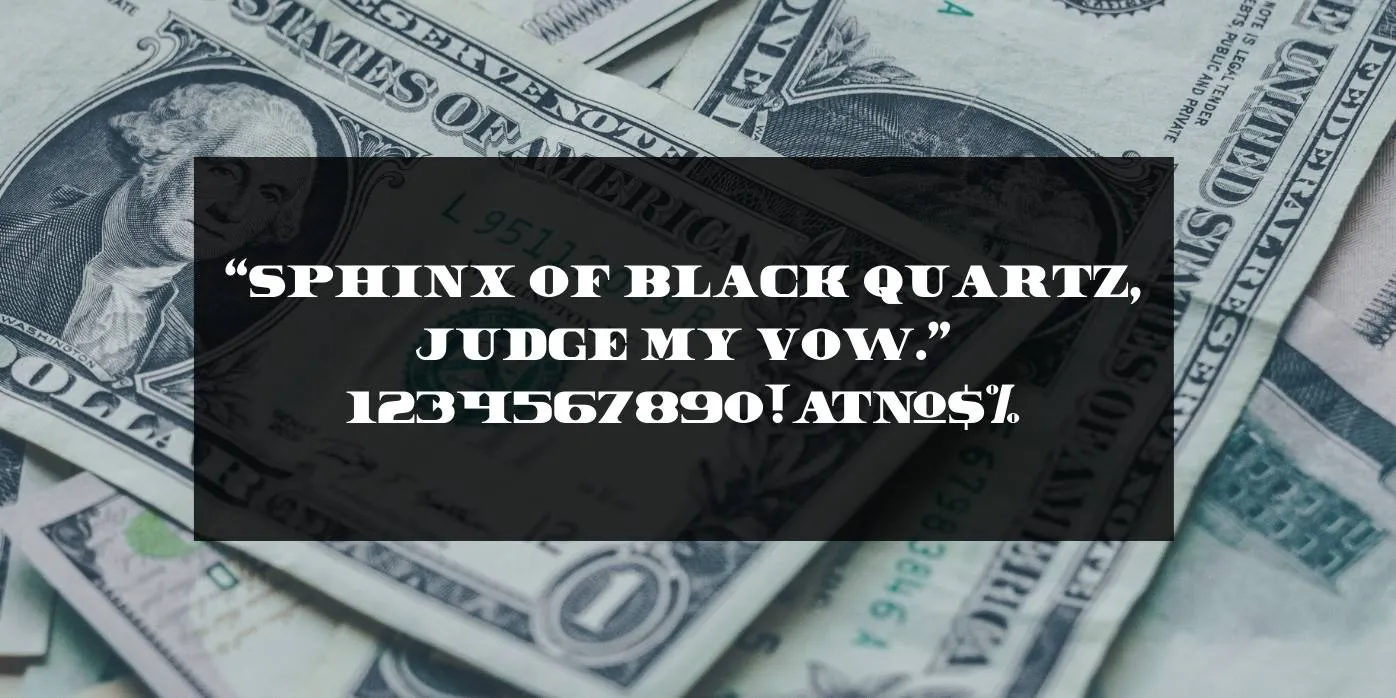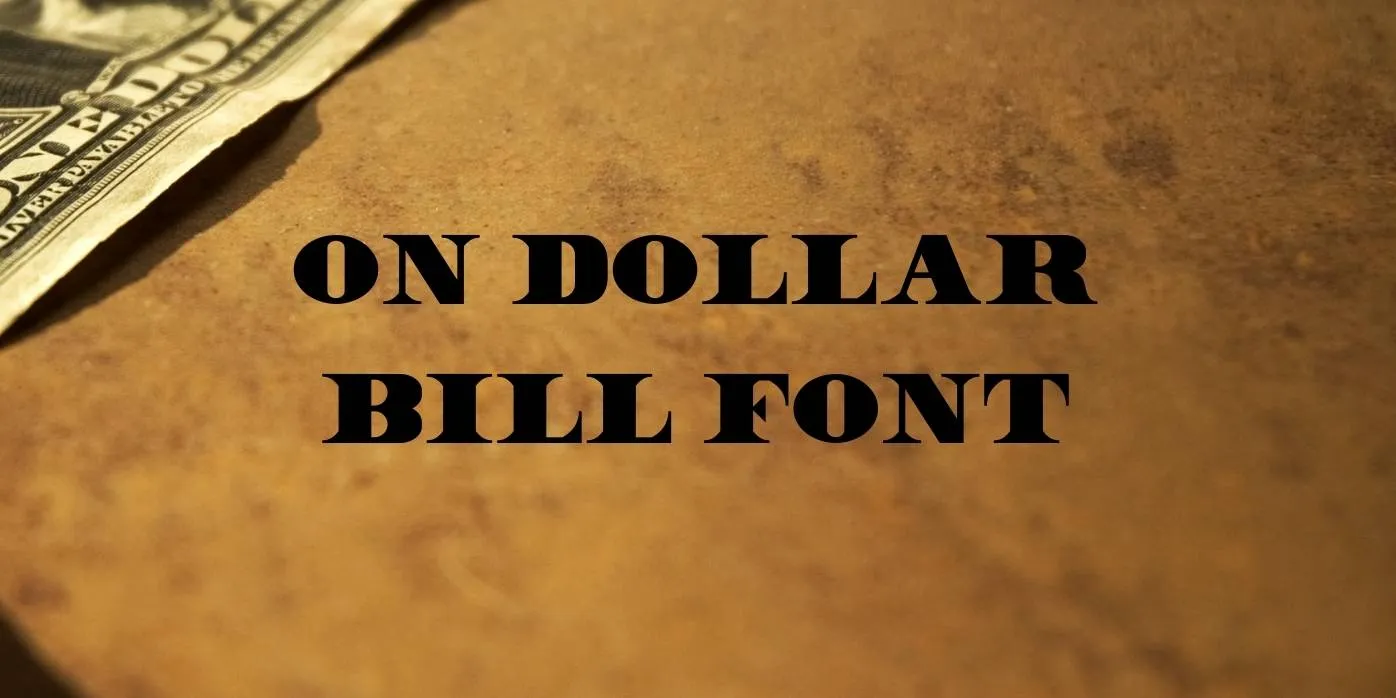
Dollar Bill Font
Dollar Bill Font is a Slab Serif typeface. This font family was developed and published by Twicolabs Foundation. This staggering font has a total of 12 styles. This slab serif typeface was inspired by the classic American bill.
The shapes of the letters are slightly rounded and have a tall x-height. The Dollar Bill Typeface family includes Thin, Light, Regular, Medium, Bold, Black, and Ultra styles. Each style has its own unique characteristics. Its similar rockwell font is best for different designs.
This typeface is best for use in Adobe. Its thin style is more delicate than the other styles. It’s perfect for headlines and short paragraphs. The Light style is also perfect for headlines and short paragraphs.
However, it’s slightly heavier than the thin style. The Regular style is the most versatile of all the styles. It can be used for both body copy and tattoo. The Medium style is perfect for body copy.